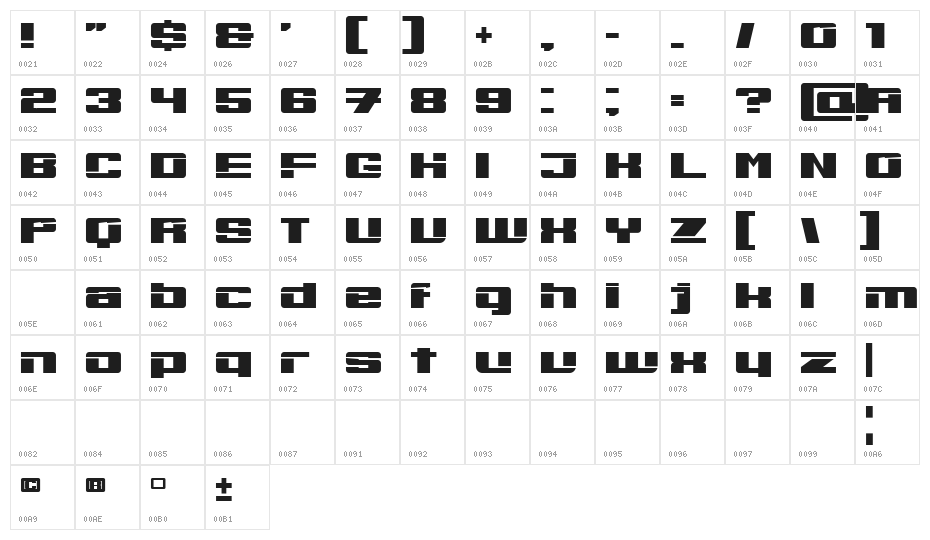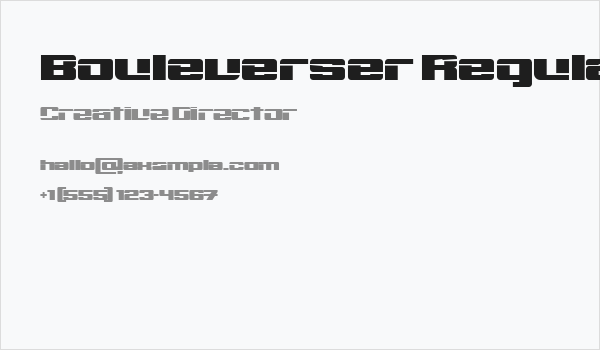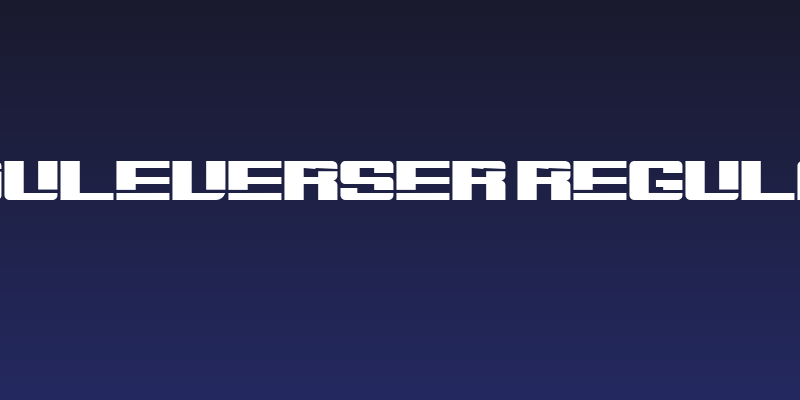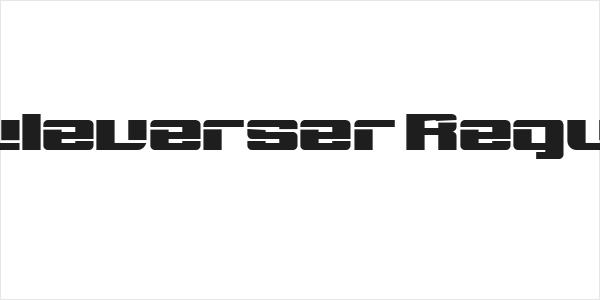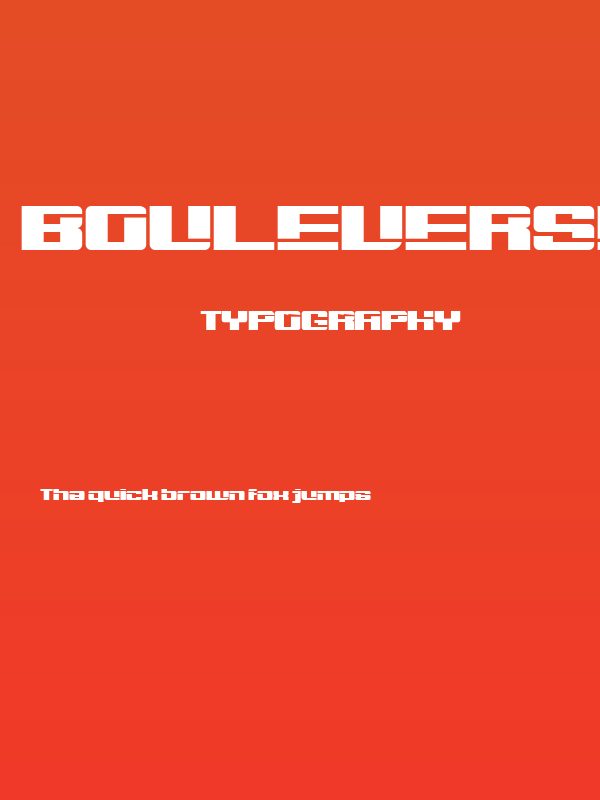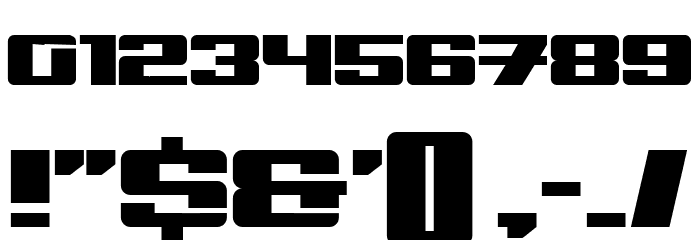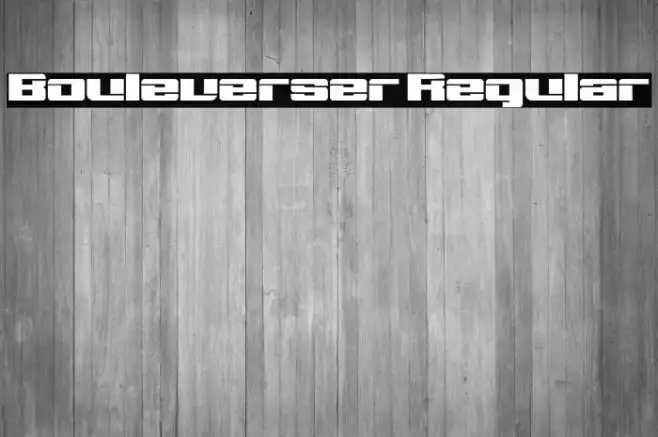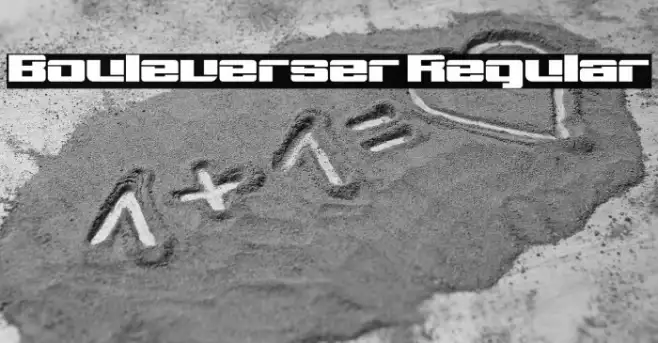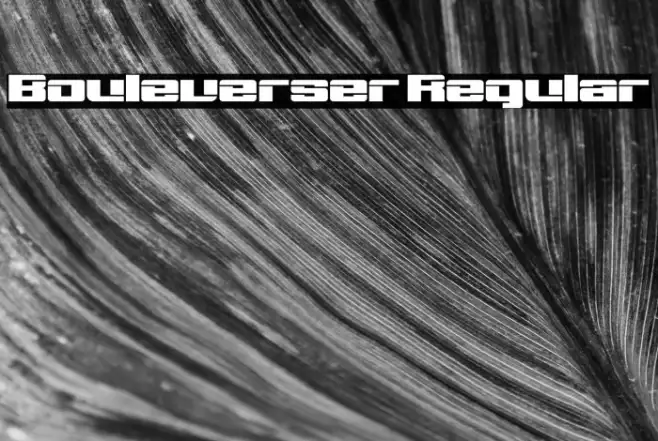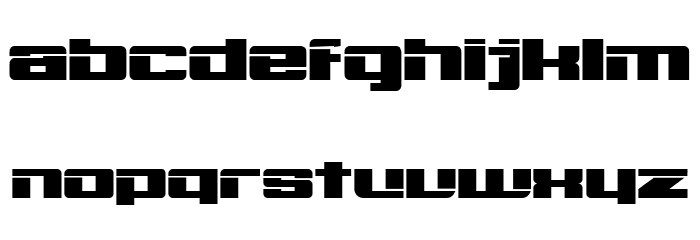
Bouleverser Regular Font
Bouleverser Regular Description
This font features a bold, geometric design with a strong emphasis on horizontal and vertical lines, creating a distinct, futuristic appearance. The characters are blocky and wide, with minimal curves, giving them a mechanical and industrial feel. The uppercase and lowercase letters maintain a consistent style, with the lowercase slightly more compact. Numbers and special characters follow the same bold, structured design, ensuring uniformity across all glyphs. The font's unique style makes it stand out, ideal for projects that require a modern and edgy look.